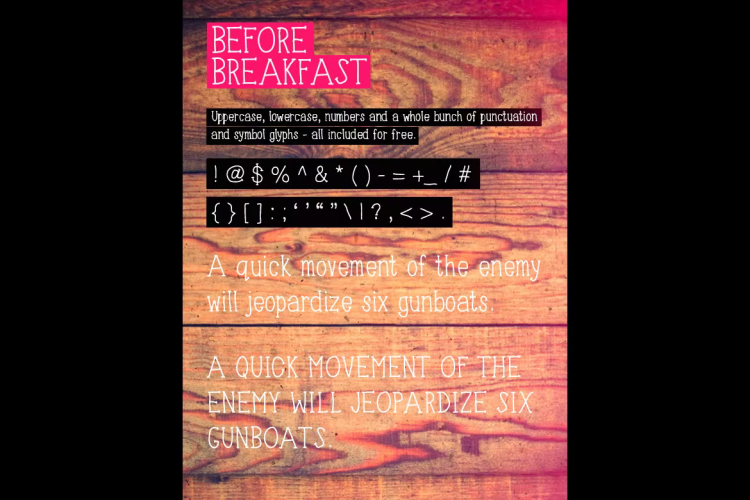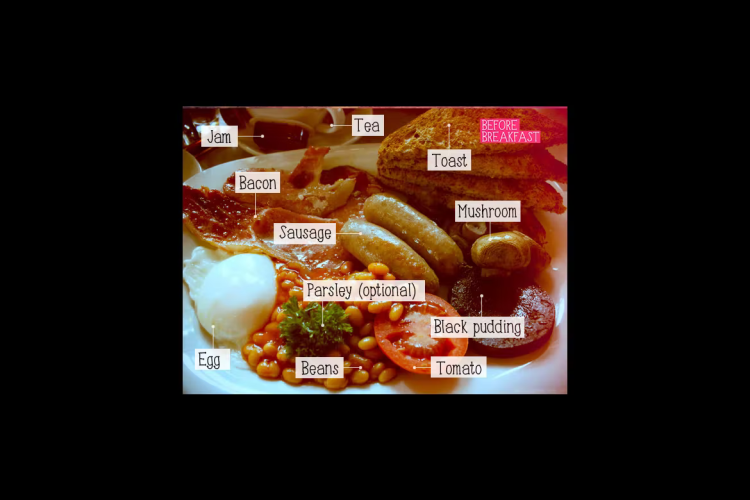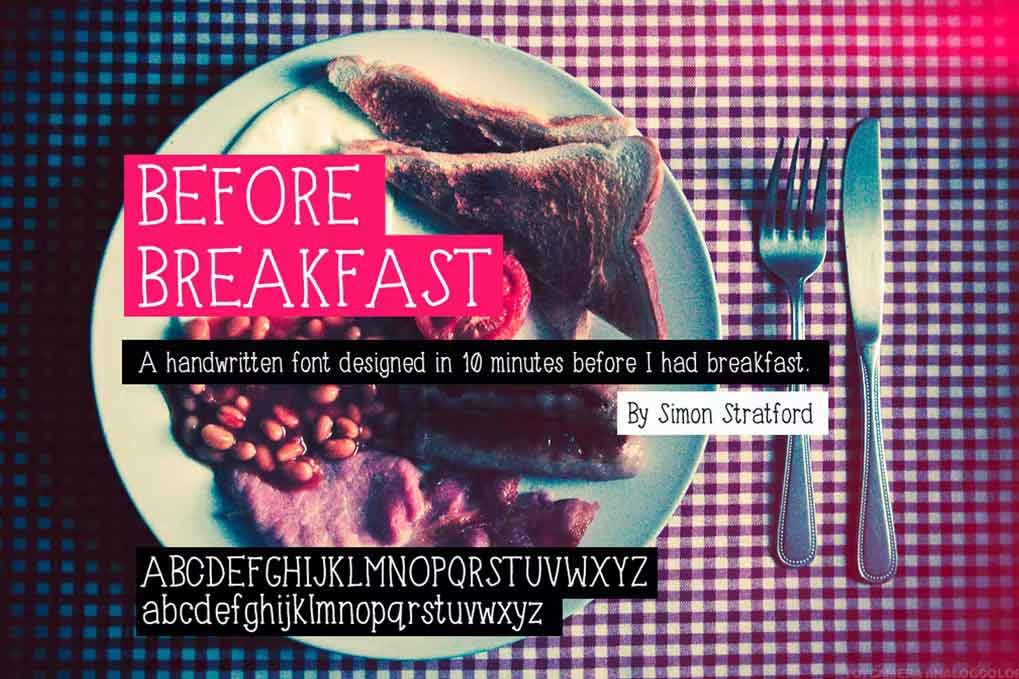
Before Breakfast Font
I created this font on my Ipad in less than 10 minutes, then I had breakfast. So I decided to call it before breakfast.
It was literally drawn with my fat index finger—that’s a first for me.
It’s a fun, handwritten typeface that probably breaks every rule in typography. It has uppercase, lowercase, numbers, maths and punctuation glyphs.
It looks a bit cute, that’s a surprise for me, I’m like a bull in a china shop normally!
It only has one style—regular, but comes as
It has no ligatures or contextual alternatives. The font has Latin character set and supports
In total, it has over 300 glyphs.